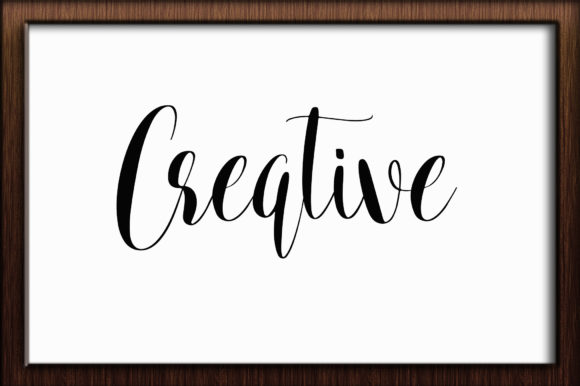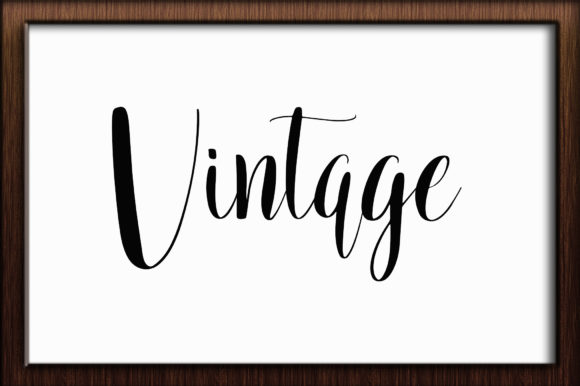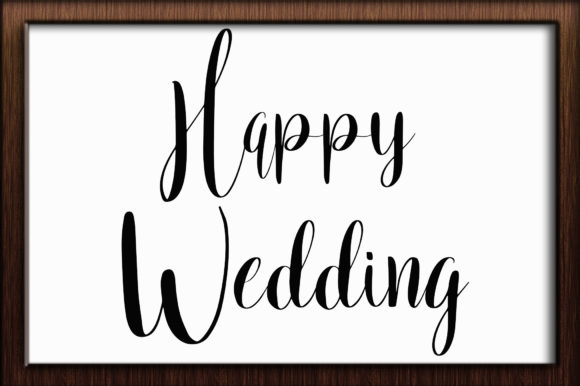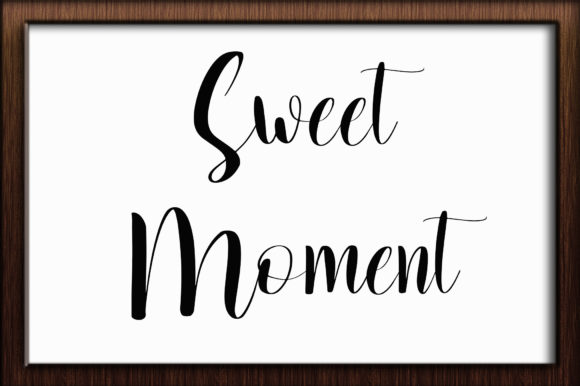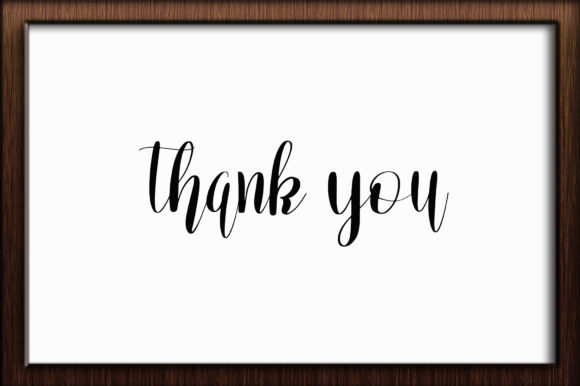
Introducing Autography Font: The Epitome of Elegance and Simplicity
In the realm of typography, few fonts manage to strike a balance between elegance and simplicity. Autography font is one such gem that has captured the hearts of designers and crafters alike. This thin lettered and simple script font is a masterpiece that exudes sophistication and poise, making it an ideal choice for a wide range of creative projects.
The Ravishing Style of Autography
Autography font boasts a unique and captivating style that is sure to leave a lasting impression. Its thin letters and simple script design give it a delicate and refined look, perfect for creating stunning visual content. Whether you’re designing wedding invitations, stationery art, or social media posts, Autography font is sure to add a touch of elegance and sophistication.
One of the most significant advantages of Autography font is its versatility. Its simple yet stylish design makes it an excellent choice for various creative projects, including:
- Wedding Invitations: Create breathtaking wedding invitations that set the tone for a fairytale-like celebration. Autography font’s elegant design will make your invitations truly unforgettable.
- Stationery Art: Add a touch of sophistication to your stationery art with Autography font. Its simple script design makes it perfect for creating beautiful and eye-catching artwork.
- Social Media Posts: Elevate your social media game with Autography font. Create stunning posts that grab attention and leave a lasting impression on your audience.
- And More: The possibilities are endless with Autography font. Use it for branding, packaging, and any other creative project that requires a touch of elegance and sophistication.
Why Designers and Crafters Love Autography Font
Autography font has quickly become a favorite among designers and crafters due to its unique characteristics. Here are a few reasons why:
- Elegance: Autography font’s thin letters and simple script design give it an undeniable elegance that is hard to find in other fonts.
- Readability: The font’s simple design makes it highly readable, even at small sizes.
- Versatility: Autography font can be used for a wide range of creative projects, from wedding invitations to social media posts.
- Easy to Pair: Autography font pairs well with a variety of other fonts, making it easy to create stunning visual content.
Tips for Using Autography Font
To get the most out of Autography font, here are a few tips to keep in mind:
- Use it for Headings: Autography font is perfect for headings and titles. Use it to create stunning headings that grab attention.
- Pair it with Other Fonts: Experiment with pairing Autography font with other fonts to create visually appealing combinations.
- Adjust the Size: Don’t be afraid to experiment with different font sizes to create visual interest.
- Add Decorations: Consider adding decorations, such as flourishes or graphics, to give your text an extra touch of elegance.
| Font Name | Autography Font |
| Author | Neo Studio |
- Thin lettered and simple script font
- Elegant and sophisticated design
- Perfect for wedding invitations, stationery art, social media posts, and more
- Highly readable
- Versatile and easy to pair with other fonts